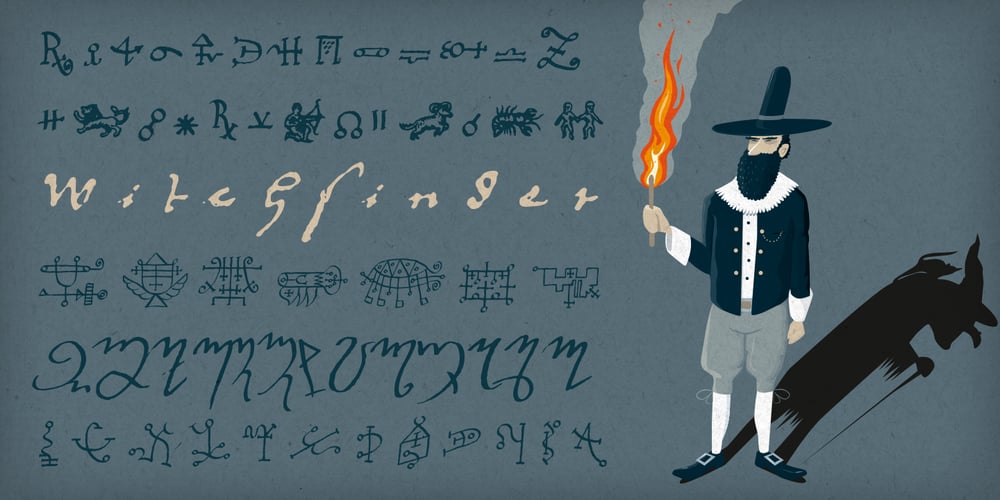
Witchfinder
Witchfinder font
Witchfinder Font Family was designed by Stefan Krömer and published by Die Typonauten. Witchfinder contains 1 styles and family package options. This font family is the first collection of almost all pictograms, signs and letters that refers to the topic of White Magic, witches and witch hunt. There are plenty of witch symbols, astrology signs, woodcuts and witch letters. The cryptic symbols are explained in an extra style. In addition to the symbols the scripts contain both: a digitized original manuscript from the ending 18th century and a modified newer script version. Bringing the light of the Enlightenment to the dark ages of suspicion, chasing and unjustness!